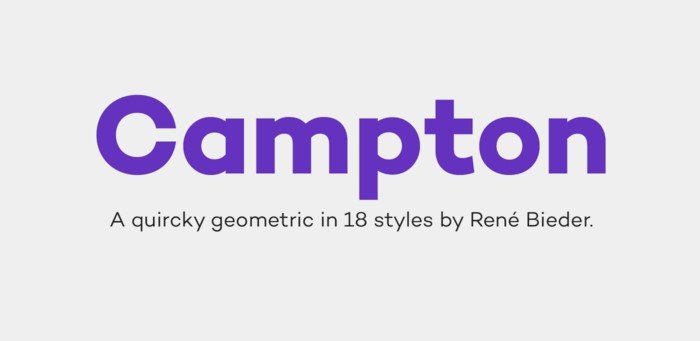
It has great look for every size of projects. Its Y-axis and X-axis size of a character have bold look and working in all projects you made with it. This is
Hey everyone, let's welcome the new and gorgeous Campton Font designed by Rene Bieder. This sans serif typeface features 478 glyphs, characters, and ligatures.
It has great look for every size of projects. Its Y-axis and X-axis size of a character have bold look and working in all projects you made with it. This is most loved and trendy fonts on google.